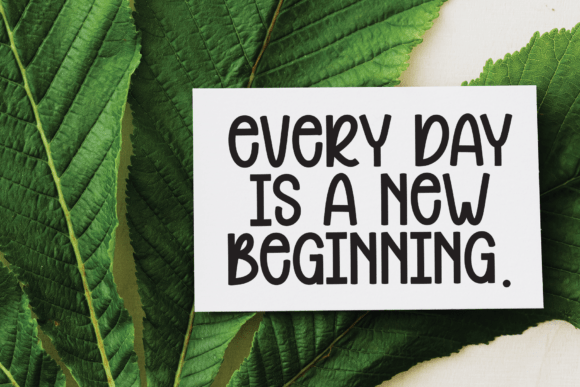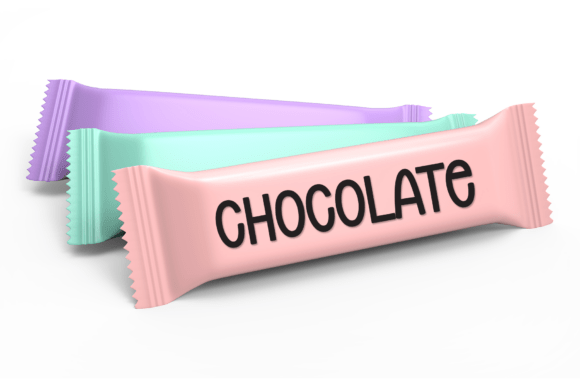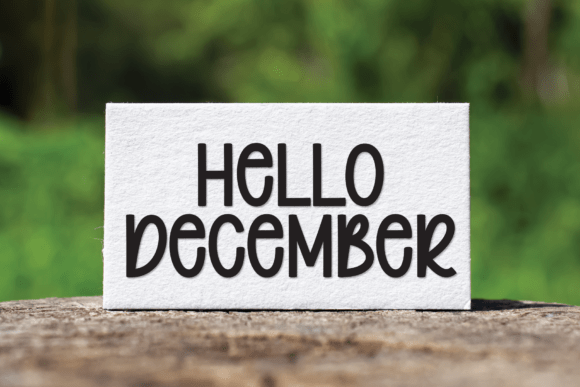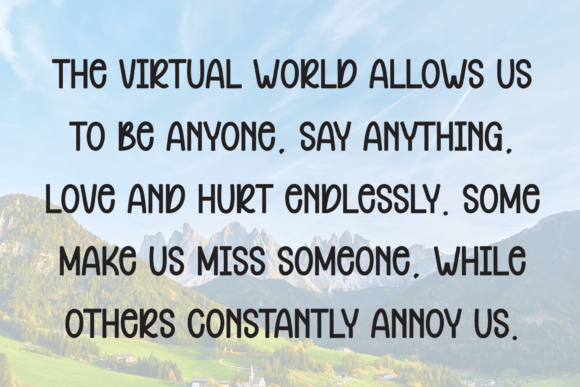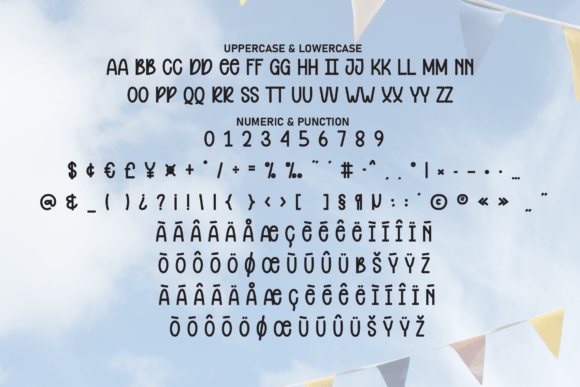
Bunting Font: Add a Touch of Whimsy to Your Designs
Are you looking for a font that can add a dash of playfulness and charm to your designs? Look no further than the Bunting Font, a delightfully charming, handcrafted display font that radiates a warm and friendly aura. This enchanting font is perfect for personalizing wedding invitations, cards, or any design project that calls for a sense of sweetness and fun.
A Font that Embodies Sweetness and Fun
The Bunting Font is designed to effortlessly transform every creation into an engaging masterpiece. Its light-hearted appeal and unique character make it the perfect addition to any design project. Whether you’re a designer, crafter, or DIY enthusiast, this font is sure to bring a smile to your face and inspire your creativity.
Perfect for Personalized Designs
One of the best things about the Bunting Font is its versatility. It’s perfect for creating personalized wedding invitations, birthday cards, or any other type of correspondence that you want to make special. The font’s playful and charming nature makes it ideal for adding a touch of whimsy to your designs.
Easy to Use and Customize
The Bunting Font is easy to use and customize, making it accessible to designers and crafters of all skill levels. Whether you’re working on a digital project or a physical one, this font is easy to incorporate and adapt to your needs.
Key Features of the Bunting Font
- Handcrafted display font with a unique and charming design
- Perfect for personalizing wedding invitations, cards, and other design projects
- Light-hearted appeal that adds a touch of playfulness to your designs
- Effortlessly transforms every creation into an engaging masterpiece
- Easy to use and customize for designers and crafters of all skill levels
Tips for Using the Bunting Font
Here are a few tips for getting the most out of the Bunting Font:
- Use it for headings and titles to add a touch of whimsy to your designs
- Pair it with other fonts to create a unique and interesting contrast
- Use it to create personalized gifts, such as customized mugs or tote bags
Why Designers and Crafters Love the Bunting Font
Designers and crafters love the Bunting Font for its unique and charming design. It’s a font that can add a touch of personality to any design project, making it stand out from the crowd. Whether you’re working on a commercial project or a personal one, this font is sure to bring a smile to your face and inspire your creativity.
In conclusion, the Bunting Font is a must-have for designers and crafters who want to add a touch of whimsy and charm to their designs. Its unique and charming design makes it perfect for personalizing wedding invitations, cards, and other design projects. With its light-hearted appeal and ease of use, this font is sure to become a favorite in your design arsenal.
Get Ready to Add a Touch of Magic to Your Designs